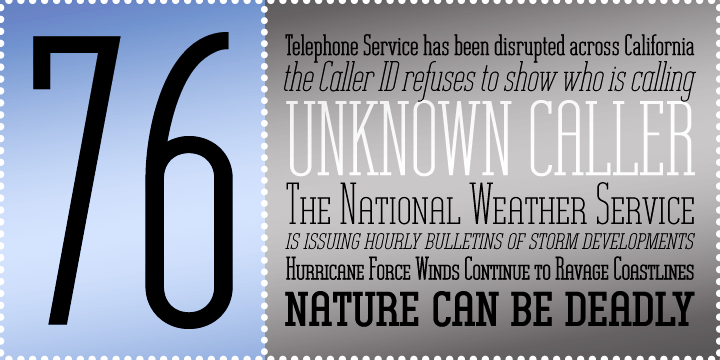
Princess BTN
Princess BTN is a stylized vintage display family with a clean decorative character and a poised, distinctive presence. Rather than leaning heavily ornate, it balances graphic structure with a subtle period flavor, making it useful for headlines, branding, packaging, signage, posters, invitations, and other display-driven work. The core family includes Light, Regular, and Bold weights for flexible emphasis, while the Princess Royal companion adds alternate decorative options with regular and outline styles. Princess BTN is well suited for projects that want a refined retro voice with personality, without becoming overly elaborate.